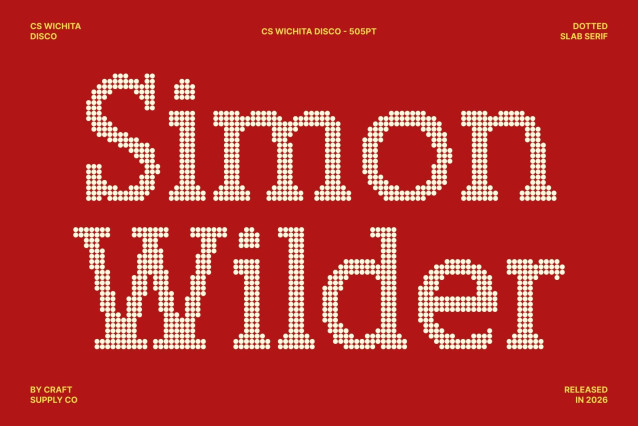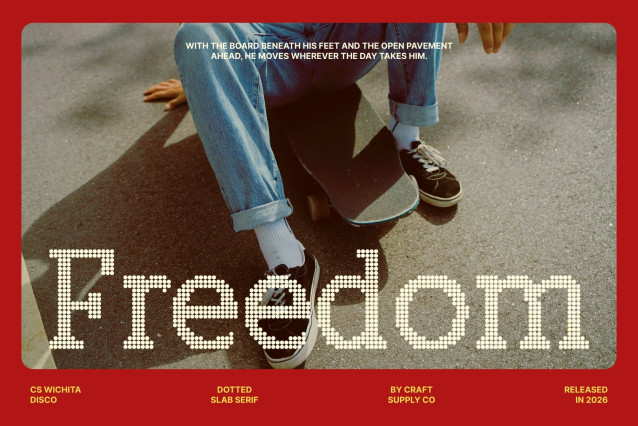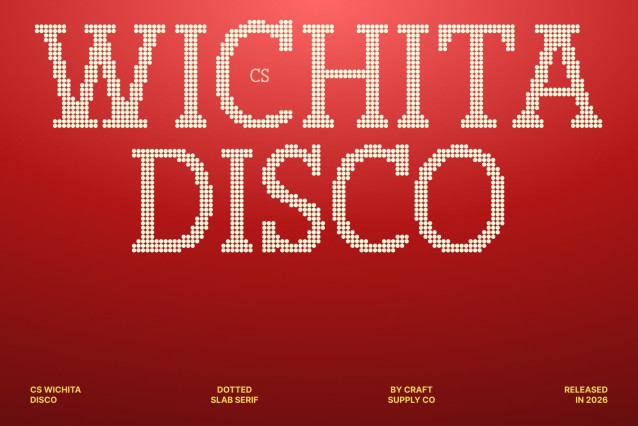
CS Wichita Disco Font
CS Wichita Disco – Clean Slab Serif with Sparkling Disco Personality
Modern Slab Serif Display with Disco Dot Texture
This slab serif font blends sturdy structure with a lively disco dot finish, transforming a clean and confident typeface into something energetic and celebratory. The strong slab serifs provide stability and clarity, while the dotted texture adds a playful sparkle that brings a cheerful, dance-floor atmosphere to every letter.
Solid Construction with Eye-Catching Detail
Each character is crafted with balanced proportions and consistent strokes, ensuring clarity and readability across layouts. The disco-inspired dotted styling enhances the letterforms with a festive glow, creating a perfect balance between professional structure and joyful visual flair.
Timeless Slab Meets Party Energy
By combining classic slab serif foundations with vibrant disco styling, this font bridges dependable typography with expressive fun. The result feels modern, versatile, and full of personality ideal for designers who want structure without losing excitement.